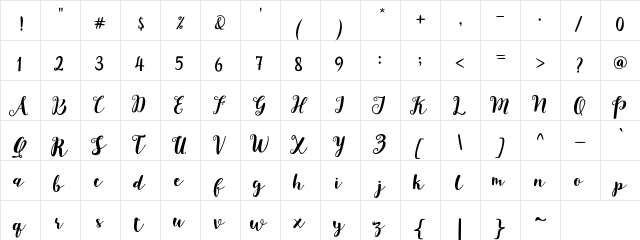
Joshan Demo Regular Font Preview
Joshan Demo Regular
Joshan Demo Regular Font Details
| Foundry | Kurniadi Saputra |
| Designer | Kurniadi Saputra |
Design Context for Joshan Demo Typeface
Joshan Demo is a composed and adaptable typeface that performs quietly and consistently across a wide range of design contexts.